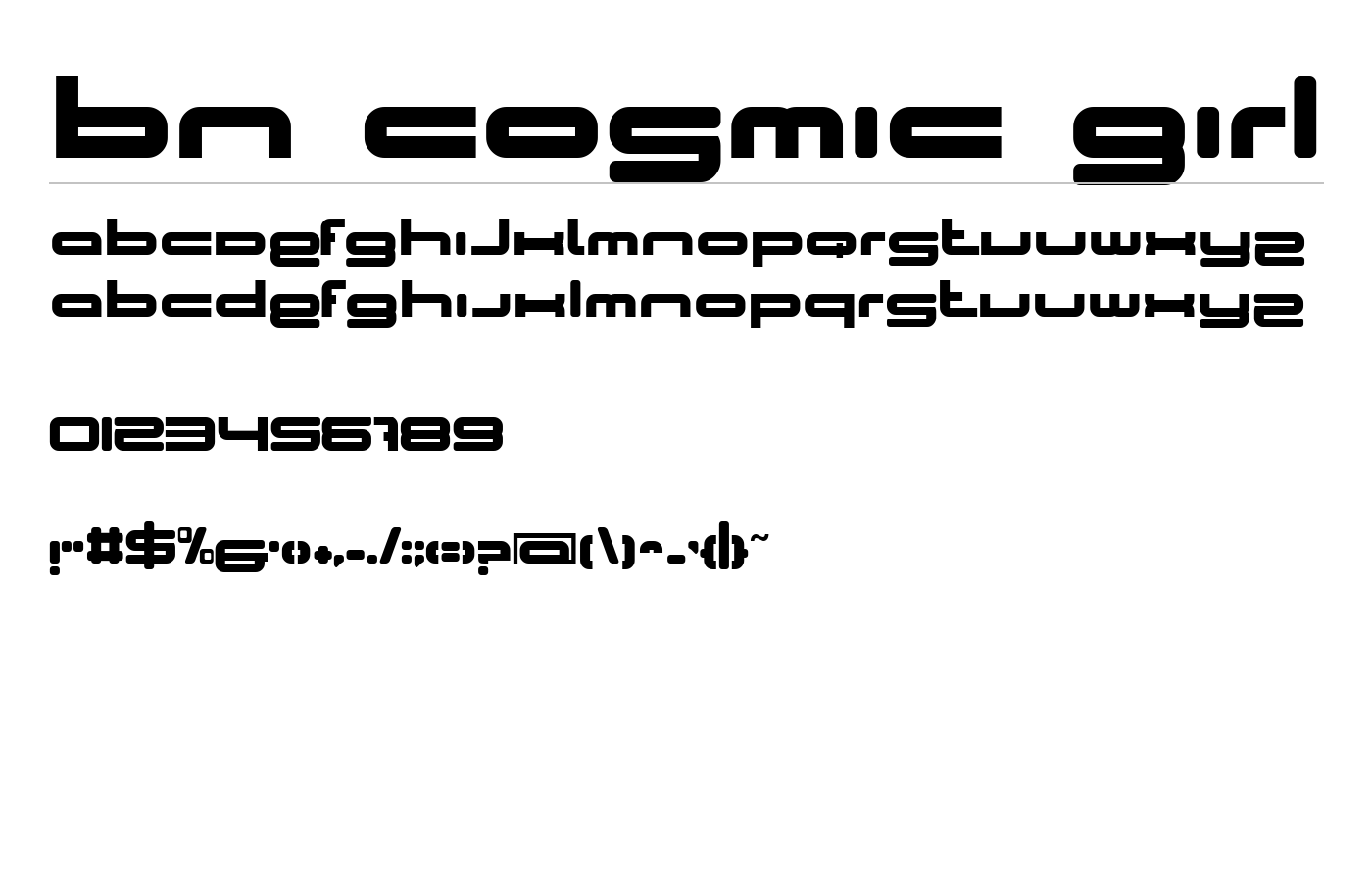
BN Cosmic Girl is a modern, geometric sans serif font with a futuristic and digital feel. Its bold weight and unique rounded, squared shapes create a sleek, tech-inspired look, making it perfect for branding, logos, and eye-catching headlines in creative and technology-driven projects. This font stands out with its distinctive letterforms and excellent readability at larger sizes.
BN Cosmic Girl Font
About BN Cosmic Girl Font